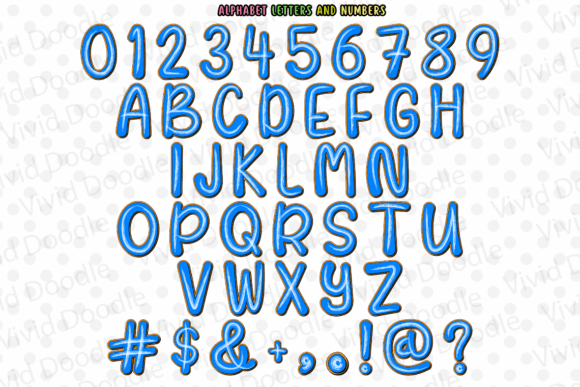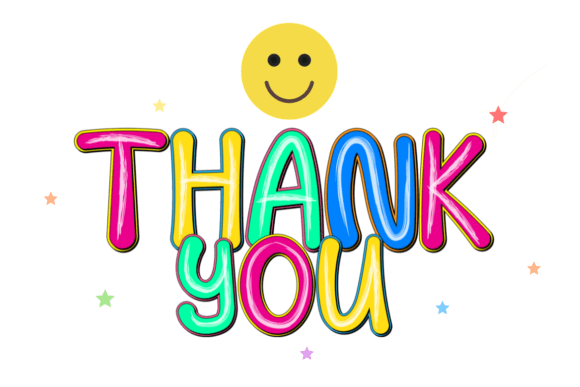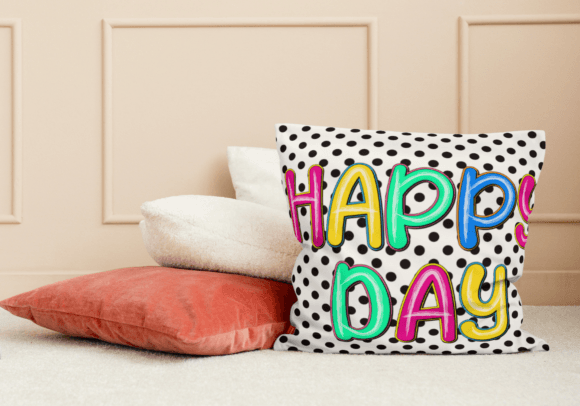
Rainbow Dolly Neon Font
Get ready to light up your designs with the “Rainbow Dolly Neon” font, a vibrant and eye-catching typeface that’s perfect for party themes, holidays, school projects, and creative art. This neon-inspired font features a playful blend of colors that will add a festive and lively touch to your graphic design work. Whether you’re crafting invitations for a party, designing fun school materials, or creating striking holiday graphics, “Rainbow Dolly Neon” brings a burst of energy and creativity to any project. Let this dynamic and colorful font make your designs shine bright!